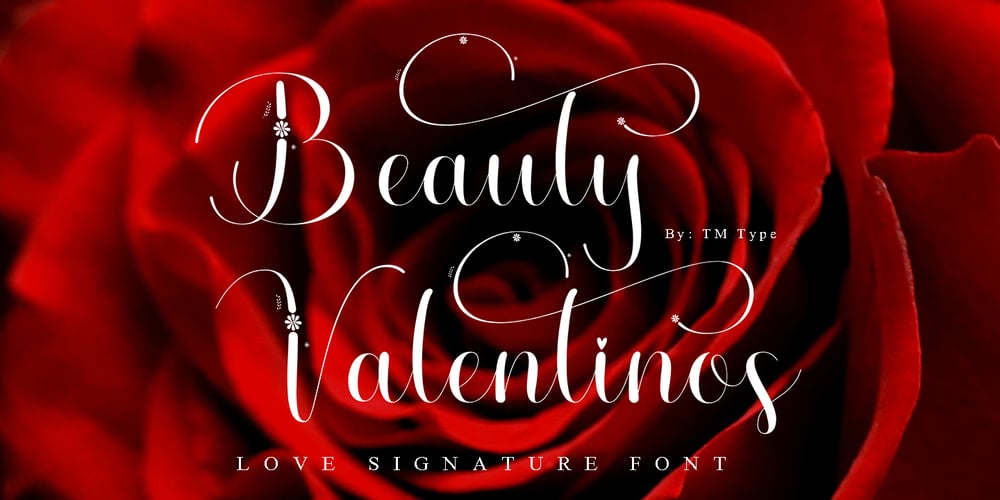
Beauty Valentinos Font Family was designed by Teuku Bustami and published by TM Type. Beauty Valentinos contains 1 styles and family package options. Beauty Valentinos is a beautiful light handwritten font with a unique feel and a stunning impact. It will add a luxury spark to any design project you wish to create!This font is PUA encoded, which means you can access all of the glyphs and swashes with ease!